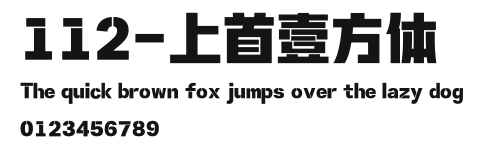
112-上首壹方体 Preview
About 112-上首壹方体.ttf
112-上首壹方体.ttf is a modern, elegant sans-serif font designed for ultimate readability and visual harmony. Perfect for branding, headlines, web design, and print materials.